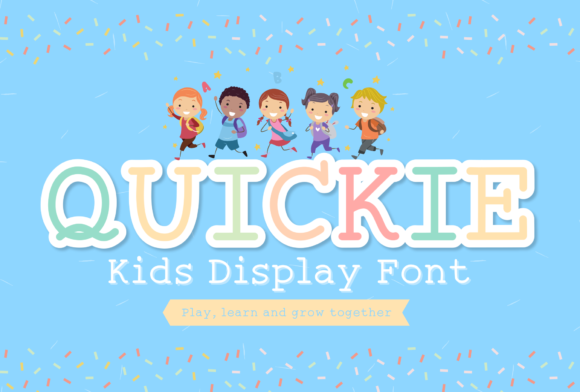
Introducing Quickie Font: The Ultimate Slab Serif Font for Creative Projects
In the world of typography, fonts play a crucial role in conveying the tone and personality of a design. When it comes to creating visually appealing and engaging content, selecting the right font is essential. If you’re looking for a font that exudes a cool, fun, and vintage vibe, look no further than Quickie Font. This slab serif font is perfect for a variety of design projects, including crafting, digital designing, presentations, and greeting cards.
What is Quickie Font?
Quickie Font is a unique and stylish slab serif font that has gained popularity among designers and crafters alike. Its distinctive vintage flair makes it an excellent choice for projects that require a touch of nostalgia and playfulness. Whether you’re creating a handmade card, a digital graphic, or a presentation, Quickie Font is sure to add a dash of personality to your design.
Design Uses for Quickie Font
Quickie Font’s versatility makes it an excellent choice for a wide range of design projects. Here are some ideas to get you started:
- Crafting: Use Quickie Font to add a personal touch to your handmade crafts, such as cards, scrapbook pages, and journal entries.
- Digital Designing: Quickie Font is perfect for creating social media graphics, blog posts, and website headers that require a fun and playful tone.
- Presentations: Add a touch of personality to your presentations with Quickie Font, making them more engaging and memorable.
- Greeting Cards: Use Quickie Font to create unique and eye-catching greeting cards for special occasions, such as birthdays, holidays, and weddings.
Key Features of Quickie Font
So, what makes Quickie Font so special? Here are some of its key features:
- Vintage Flair: Quickie Font boasts a distinctive vintage style that’s perfect for designers looking to add a touch of nostalgia to their projects.
- Slab Serif: The font’s slab serif design gives it a sturdy and dependable feel, making it suitable for a wide range of design applications.
- Cool and Fun: Quickie Font has a playful and carefree personality that’s sure to add a dash of fun to your designs.
Tips for Using Quickie Font
To get the most out of Quickie Font, here are some tips to keep in mind:
- Pair it with Other Fonts: Experiment with pairing Quickie Font with other fonts to create a unique and visually appealing combination.
- Use it for Headings: Quickie Font is perfect for headings and titles, where its bold and playful personality can shine.
- Experiment with Colors: Don’t be afraid to experiment with different colors and textures to add depth and interest to your designs.
Quickie Font Inspiration
If you’re looking for inspiration on how to use Quickie Font, here are some ideas to get you started:
- Vintage-inspired Posters: Create eye-catching posters that evoke a sense of nostalgia and fun.
- Handmade Cards: Use Quickie Font to add a personal touch to your handmade cards and gift tags.
- Digital Graphics: Create engaging digital graphics, such as social media posts and blog headers, that showcase Quickie Font’s playful personality.
In conclusion, Quickie Font is a versatile and stylish slab serif font that’s perfect for a wide range of design projects. Its unique vintage flair, cool and fun personality, and bold design make it an excellent choice for designers looking to add a touch of personality to their work. Whether you’re creating handmade crafts, digital graphics, presentations, or greeting cards, Quickie Font is sure to become a favorite in your design arsenal.